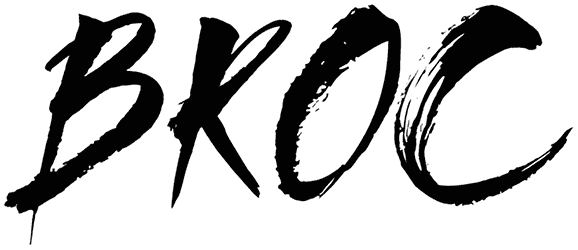
Broc Font
Let your design be cool and adorable with a horror font such as Broc. You are able to give projects a realistic face and depict a lot of modern designs, for example, flyers, tattoos, social media graphics, and other kind…
Let your design be cool and adorable with a horror font such as Broc. You are able to give projects a realistic face and depict a lot of modern designs, for example, flyers, tattoos, social media graphics, and other kinds of stuff. Broc with a brush lettering outward can be matched with many themes and give the words a unique appeal.